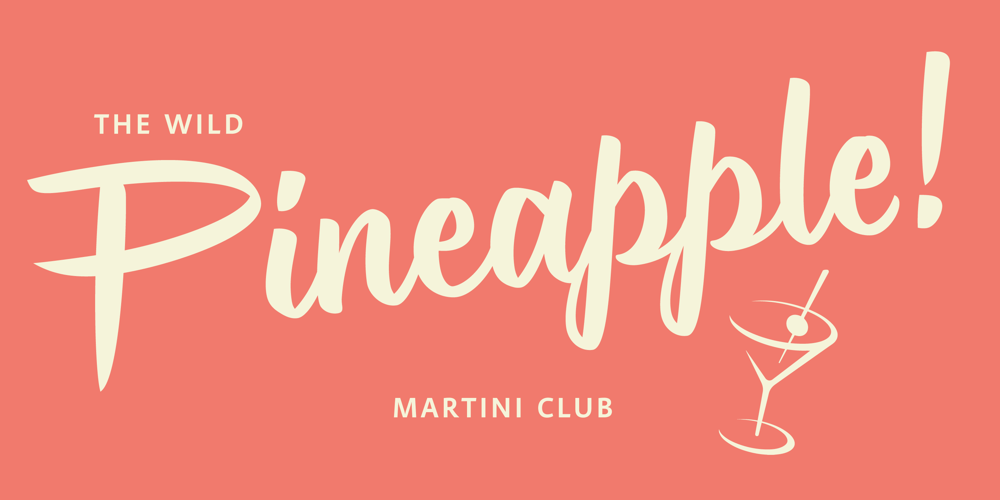
Monarda
Monarda font
Monarda Font Family was designed by Terrance Weinzierl and published by Monotype. Monarda contains 1 styles and family package options. Monarda™ is Terrance Weinzierl’s take on the loud and splashy brush scripts of the 1950s. It’s energetic, playful, and equally at home in hardcopy headlines as it is in interactive banners. In addition to the basic alphabet, OpenType® fonts of Monarda are also awash in super-sized swash caps, contextual alternate characters and ligatures. Pair Monarda with a mid-century structural sans like Trade Gothic® or a sturdy slab serif like Egyptian Slate™ to create typographic counterpoint that’s confident, compelling and memorable! Named for a riotous bright red flower that attracts butterflies and humming birds, Monarda is a rare combination of flamboyance and effortless beauty. Weinzierl describes it as “casual yet precise: a stiff denim jacket or perfectly white sneakers at a formal event.” Monarda clearly stands out – and always fits in. Well, almost always. Drawn for print, the design’s robust x-height, open counters and wide apertures also make Monarda screen-friendly. Monarda can be perfect for a wide variety of food and lifestyle applications as well as travel, stationery and packaging projects. Advertising campaigns and product branding are also well within its reach. Monarda works best when used large – but economically. Two or three words are its sweet spot. Think: product name, print headline or the lettering on the side of a truck. It could easily become your go-to design for projects that call for a script with a bright personality and fearless demeanor. The excellence of Weinzierl’s work has been recognized by the Type Directors Club and Print Magazine. When not working on creating new typefaces, he augments his professional practice through calligraphy, lettering, and letterpress printing. Monarda is another winner from Weinzierl’s creative mind and talented hand.